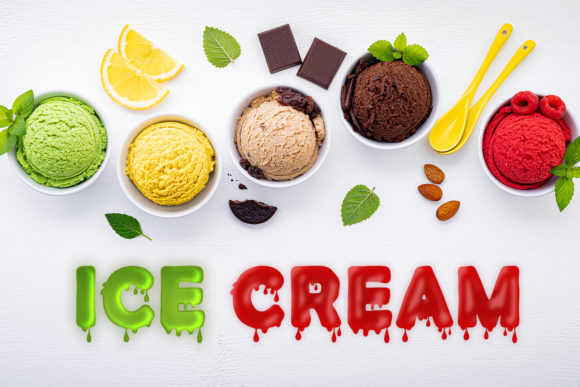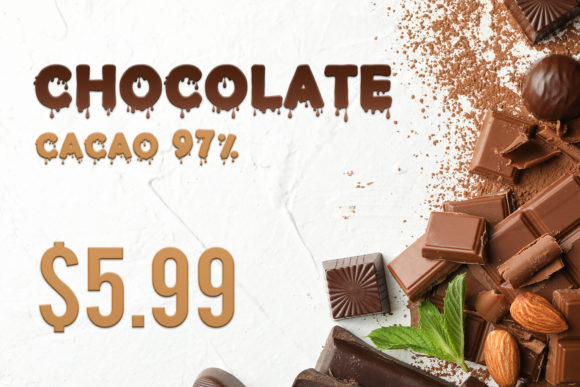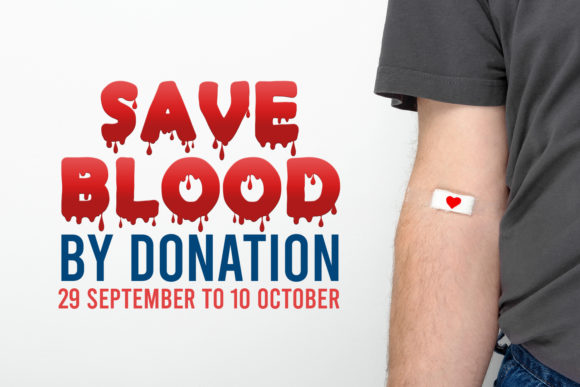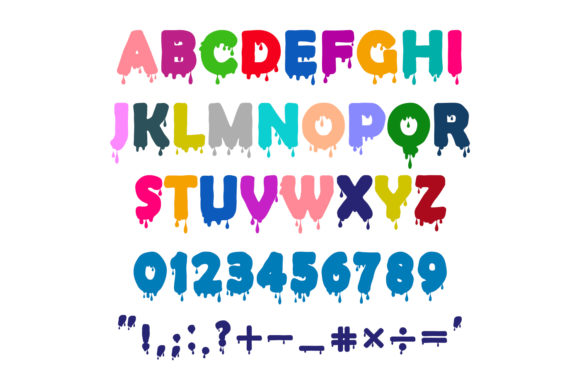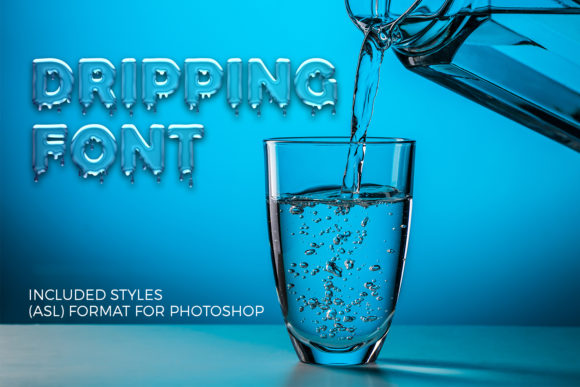
Dripping Font: Elevate Your Designs with a Bold and Unique Display Font
Are you tired of using the same old fonts in your designs? Do you want to add a touch of creativity and uniqueness to your projects? Look no further than the Dripping Font! This bold and incredibly unique display font is perfect for designers and crafters who want to make their work stand out from the crowd.
What is Dripping Font?
Dripping Font is a display font that features bold, dripping letters that are sure to grab attention. Its unique design makes it perfect for a wide range of projects, from posters and flyers to logos and branding materials. The font is easy to read and understand, making it a great choice for designers who want to add a touch of creativity to their work without sacrificing legibility.
Key Features of Dripping Font
- Bold and Unique Design: The Dripping Font features a bold and unique design that is sure to grab attention.
- Highly Versatile: This font can be used in a wide range of projects, from posters and flyers to logos and branding materials.
- Easily Readable: Despite its bold design, the Dripping Font is easy to read and understand, making it perfect for designers who want to add a touch of creativity to their work without sacrificing legibility.
How to Use Dripping Font in Your Designs
Using the Dripping Font in your designs is easy! Here are a few tips to get you started:
- Pair it with a Simple Font: Pair the Dripping Font with a simple font to create a bold and eye-catching design.
- Use it for Headlines: The Dripping Font is perfect for headlines and titles, where its bold design can really make an impact.
- Experiment with Different Colors: The Dripping Font looks great in a wide range of colors, so don’t be afraid to experiment and find the perfect color for your design.
Benefits of Using Dripping Font
There are many benefits to using the Dripping Font in your designs. Here are a few:
- Adds Creativity and Uniqueness: The Dripping Font adds a touch of creativity and uniqueness to your designs, setting them apart from the crowd.
- Grabs Attention: The bold design of the Dripping Font is sure to grab attention and draw the eye.
- Perfect for a Wide Range of Projects: The Dripping Font is perfect for a wide range of projects, from posters and flyers to logos and branding materials.
Who Can Benefit from Using Dripping Font?
The Dripping Font is perfect for a wide range of designers and crafters, including:
- Graphic Designers: Graphic designers can use the Dripping Font to add a touch of creativity and uniqueness to their designs.
- Logos and Branding Specialists: Logos and branding specialists can use the Dripping Font to create bold and eye-catching logos and branding materials.
- Crafters: Crafters can use the Dripping Font to add a touch of personality to their handmade projects.
In conclusion, the Dripping Font is a bold and incredibly unique display font that is perfect for designers and crafters who want to add a touch of creativity and uniqueness to their work. Its highly versatile design makes it perfect for a wide range of projects, from posters and flyers to logos and branding materials. So why not give it a try and see how it can elevate your designs?